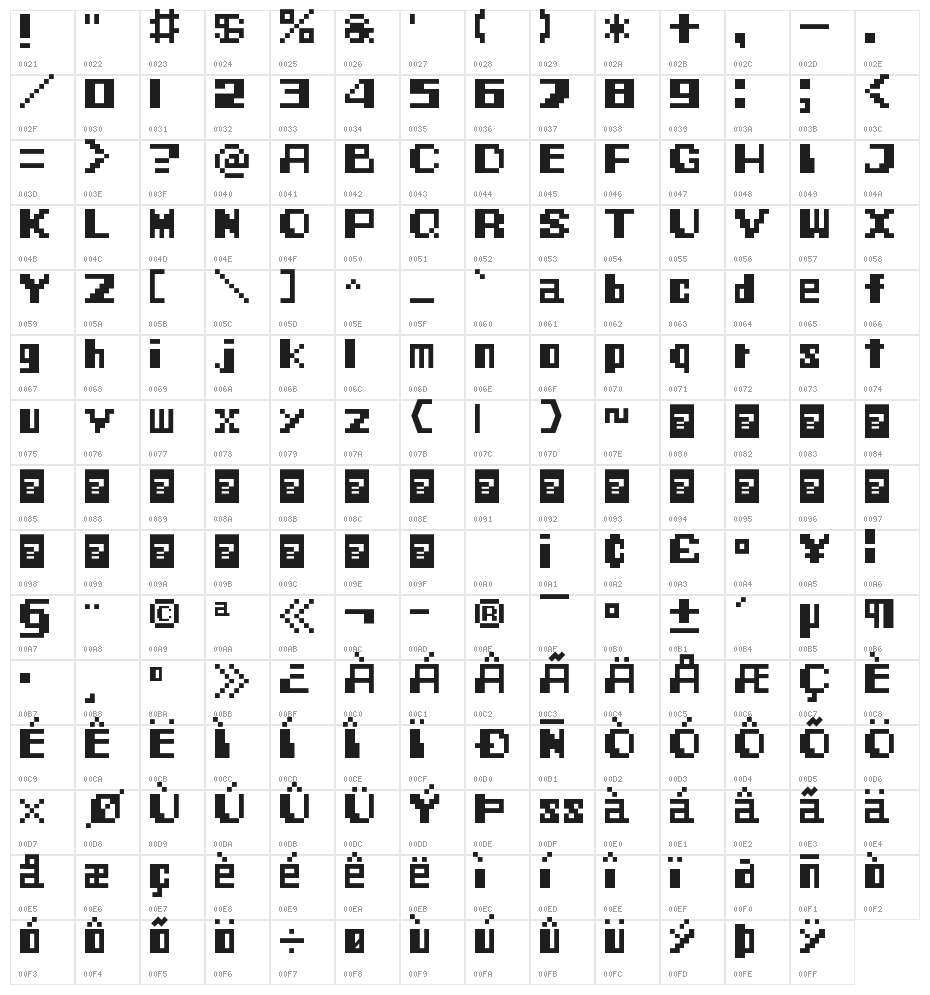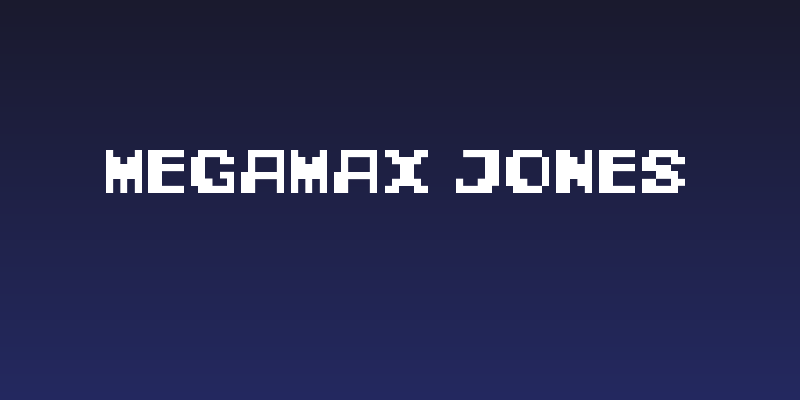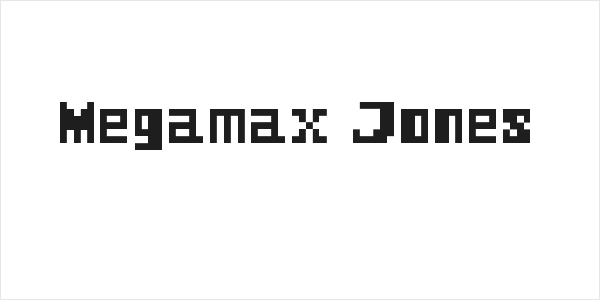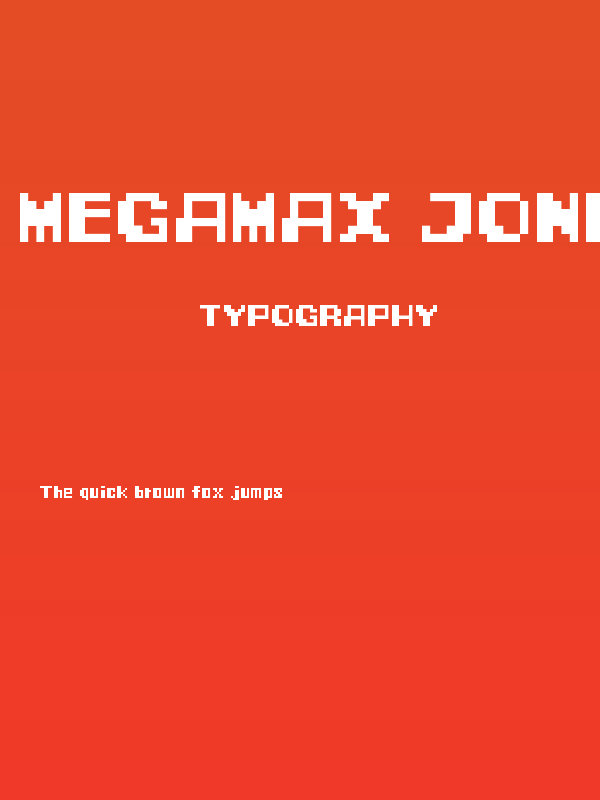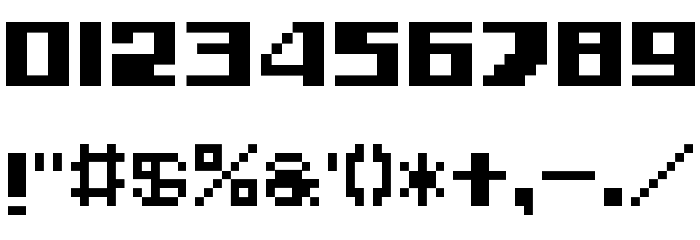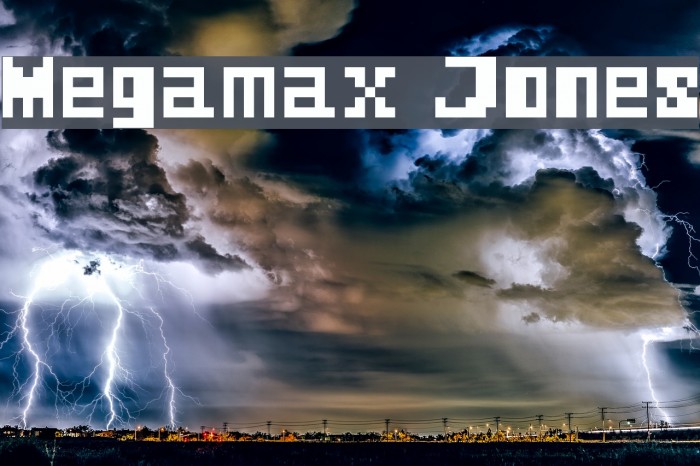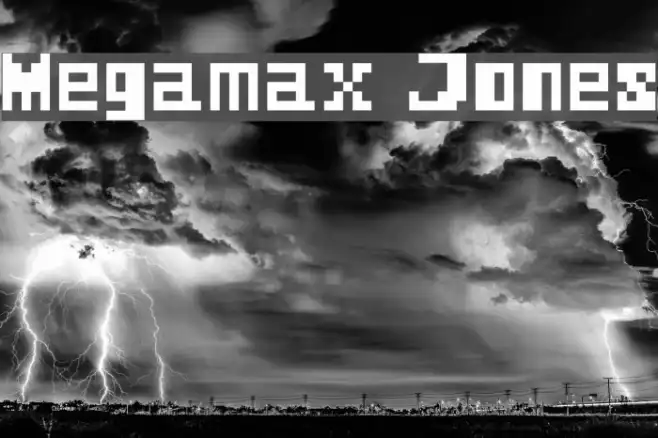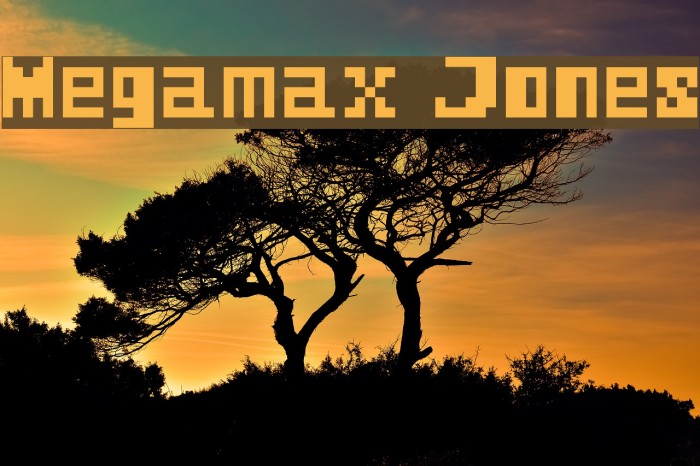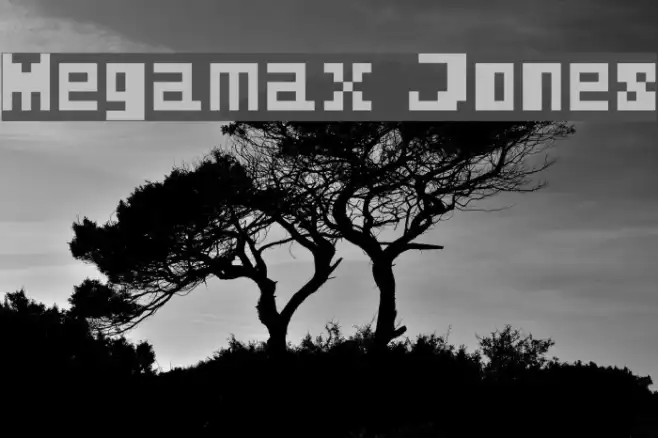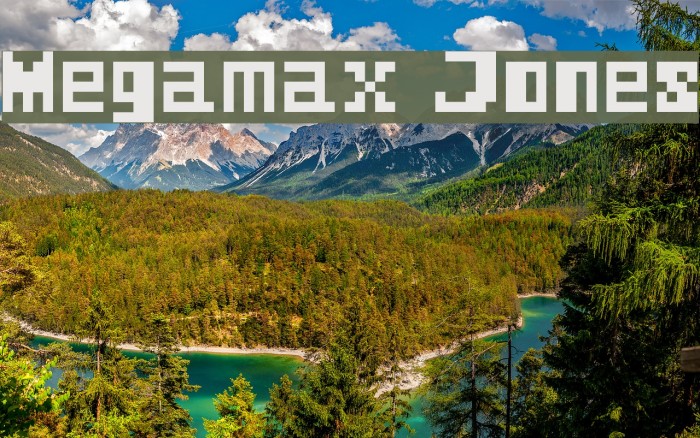
Megamax Jones Font
Megamax Jones Description
This font features a bold, pixelated style reminiscent of early digital displays and video game graphics. Each character is constructed with a blocky, square design, giving it a distinctly retro and digital aesthetic. The uppercase and lowercase letters maintain a consistent height, contributing to a uniform appearance. Numbers and special characters follow the same pixelated theme, ensuring visual coherence across all glyphs. The font's design is straightforward, with no curves or embellishments, emphasizing its digital roots. This style is ideal for projects that aim to evoke nostalgia or a tech-focused theme.
| Overall Style | Retro, Digital |
| Use Case | Logos, Headlines, Digital displays |
| Proposed Projects | Ideal for video game design, retro-themed posters, digital art, and tech-related branding. |